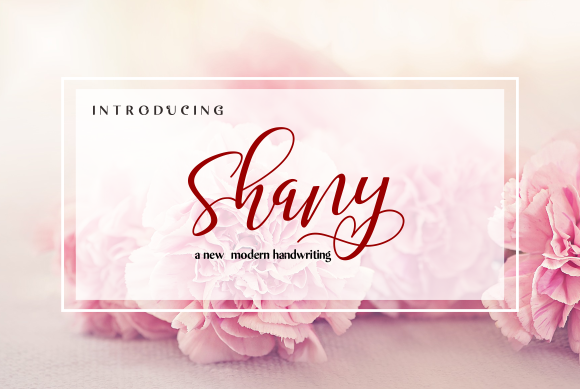
Discover the Elegance of Shany Font: A Serene Dance of Letters
Step into the enchanting world of Shany Font, a modern handwritten typeface that brings a touch of serenity and style to your designs. Its irregular and flowy letters mimic the graceful movements of a dance, creating a captivating visual journey for your readers.
Shany Font's unique charm lies in its ability to transform ordinary words into captivating expressions. Each character carries a story, inviting your audience to immerse themselves in the beauty of your designs. Its free-spirited nature adds a personal touch, making your projects feel heartfelt and genuine.
Whether you're crafting logos, invitations, social media posts, or any other creative endeavor, Shany Font is your perfect companion. Its versatility allows you to explore a wide range of styles, from elegant and sophisticated to whimsical and playful.
With Shany Font, you'll unlock a world of creative possibilities. Its inspiring nature will ignite your imagination and elevate your designs to new heights. Embrace the artistry of Shany Font and let your creativity flourish.